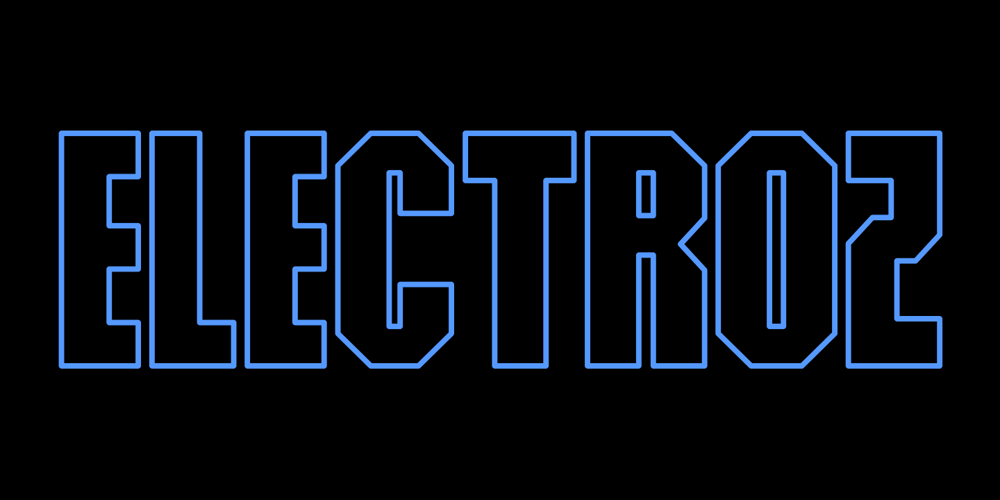
Electroz Font Family was designed by Arief Rochman and published by 4RM Font. Electroz contains 4 styles and family package options. Electroz font is a techno themed font made with futuristic values, made with condensed width and slanted cuts at the corners of the letters making this font look cool and have a strong futuristic value. suitable for use in futuristic-themed designs